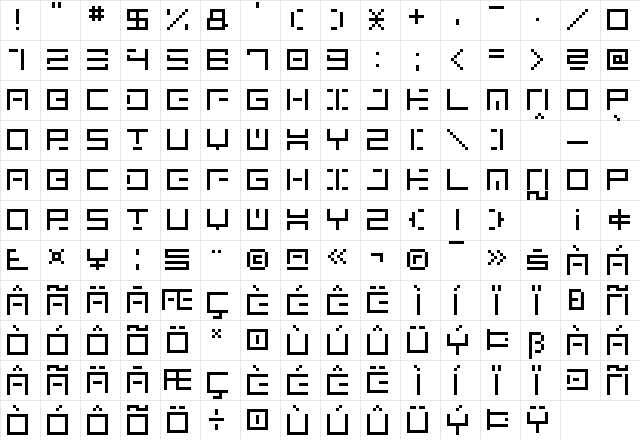
genown_v01 Regular
Design Context for genown_v01
genown_v01 is a composed and adaptable typeface that performs quietly and consistently across a wide range of design contexts.